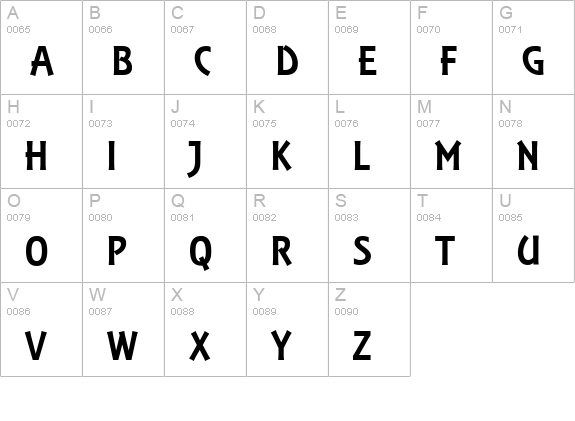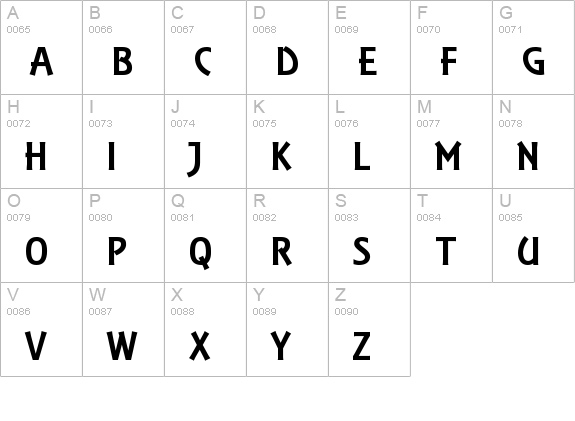
Estelle-Regular is the standard, neutral variant in the Estelle typeface family \xE2\x80\x94 well suited to general body text, paragraphs, and standard typographic work.
Estelle-Regular is a versatile and elegant font that exudes sophistication and modernity. With its clean lines and balanced proportions, this typeface is suitable for a wide range of design projects, from branding to editorial work. The classic yet contemporary aesthetic of Estelle-Regular makes it a perfect choice for both print and digital applications. What sets Estelle-Regular apart is not just its timeless design, but also the fact that it is available for free download at FontsMarket.com. This means that you can easily access this high-quality font without any cost, making it a valuable addition to your font library. Whether you are a designer looking for a reliable typeface or a hobbyist exploring new fonts, Estelle-Regular offers a seamless and professional solution for your creative needs. Embrace the versatility and beauty of Estelle-Regular as you elevate your design projects with its refined typography. Download this exceptional font for free today at FontsMarket.com and unlock a world of endless design possibilities.